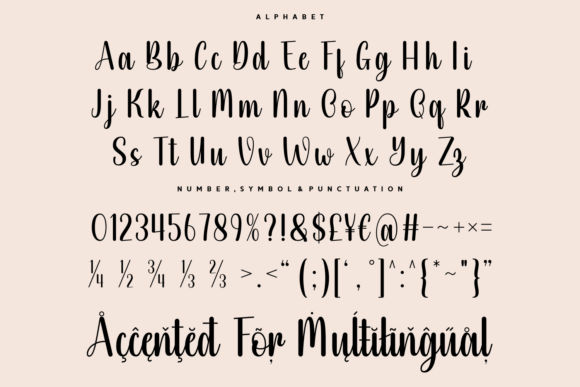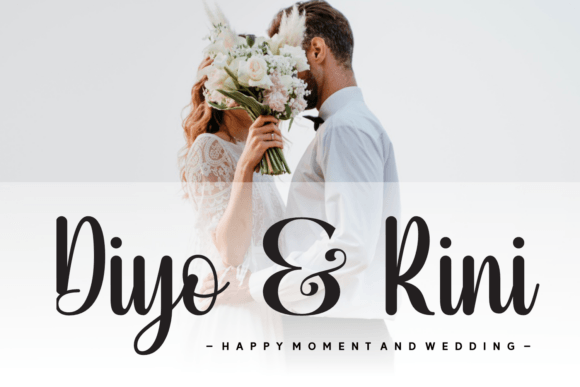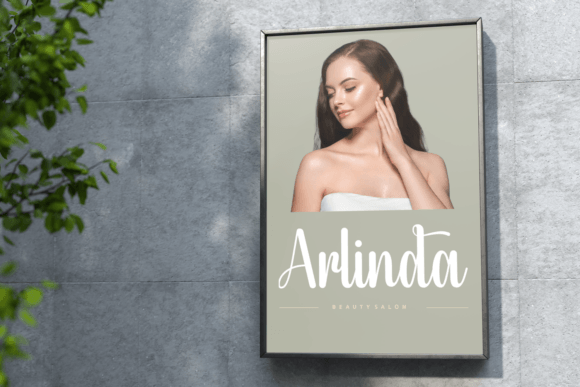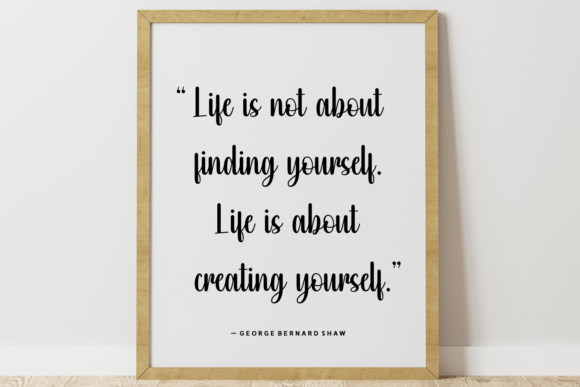
Introduction to Mymom Font
As designers, we’ve all been there – staring at a blank canvas, searching for the perfect font to bring our creative vision to life. For many of us, that moment of inspiration comes when we’re designing something special for loved ones. It’s a chance to show our appreciation and thoughtfulness through our work. And that’s exactly what the Mymom Font is all about – conveying love and warmth through its beautiful, handwritten script.
This high-quality design resource is perfect for creating sentimental designs such as greeting cards, family projects, and invitations. With its smooth curves, playful swashes, and touch of sophistication, the Mymom Font is sure to add a loving charm to any project. Whether you’re a seasoned designer or just starting out, this versatile font is a valuable addition to your toolkit.
Key Features of Mymom Font
- Designed with a unique, hand-drawn aesthetic, making it a great addition to any design resource
Honest Review: Mymom Font
As a designer, I’m always on the lookout for high-quality design resources that can elevate my creative projects. I recently came across the Mymom Font, and I’m excited to share my thoughts on it.
What works well
- ✨ Beautiful and playful design: The Mymom Font has a unique, hand-drawn feel that’s perfect for adding a touch of whimsy to your designs.
- ✨ Wide range of characters: The font includes a vast array of characters, including punctuation marks and special characters, making it a great choice for a variety of projects.
- ⚠️ Limited font styles: While the Mymom Font has a unique design, it’s limited to a single style, which may not be suitable for projects that require a range of font styles.
Overall, the Mymom Font is a great addition to any designer’s toolkit. Its unique design and wide range of characters make it a versatile resource for creative projects. While it may have some limitations, it’s a great option for designers on a budget who are looking for a high-quality font to elevate their designs.
Tips for Getting the Most Out of Mymom Font
Common Use Cases for Mymom Font